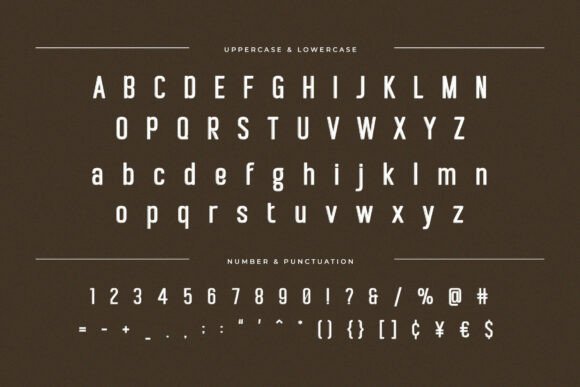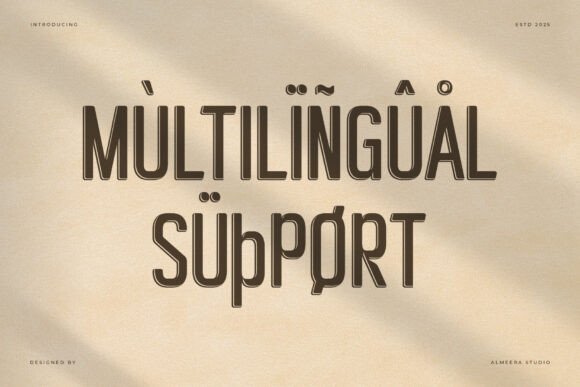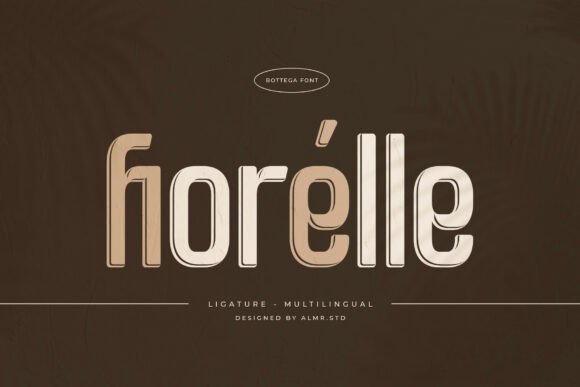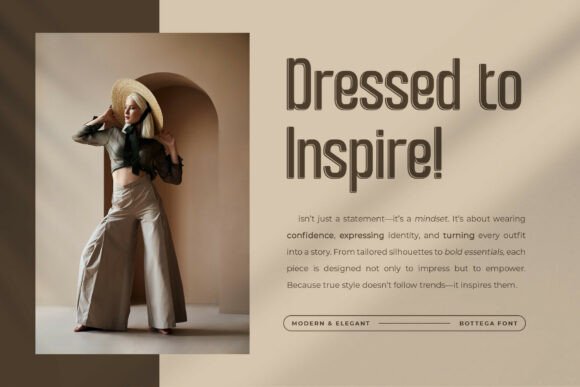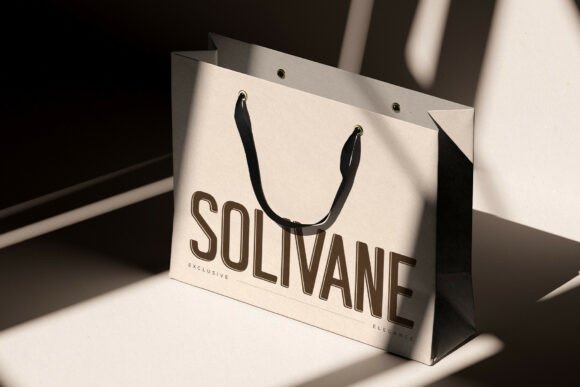
Unveiling the Elegance of Bottega Font
As designers, we’ve all been there – staring at a blank canvas, searching for the perfect font to bring our vision to life. The pressure to create something truly unique and captivating can be overwhelming. But what if the perfect font was waiting for you, its elegant lines and refined simplicity whispering ‘yes, this is it’?
Enter Bottega Font, a modern display sans designed to elevate your upscale branding, fashion logos, and editorial titles. With its high contrast shapes and beautiful spacing, Bottega Font is the perfect companion for designers seeking to create luxury-driven designs that exude sophistication and style. By incorporating Bottega Font into your design arsenal, you’ll unlock a world of creative possibilities and take your projects to new heights.
Bottega Font Key Features
- Unique Characteristics: Bottega Font features a distinctive, elegant design with a mix of modern and classic elements, making it perfect for various design projects, from logos to packaging.
- Language Support: The font supports a wide range of languages, including Latin, Cyrillic, and Greek alphabets, making it suitable for international projects.
- Weight and Style Options: Bottega Font is available in multiple weights, from Light to Bold, and various styles, including Regular, Italic, and Condensed, offering flexibility for designers.
- Scalability: The font is designed to be highly scalable, ensuring that it remains legible and visually appealing even at small sizes or when enlarged.
Bottega Font Review
Overall, I think Bottega Font is a decent choice for designers looking for a modern, elegant typeface. ✨ One of the things that stands out is its versatility – it can be used for a variety of applications, from headings to body text. It also has a nice, balanced feel to it, which makes it easy to read.
Another strength of Bottega Font is its character set. ✨ It has a wide range of languages supported, making it a great choice for designers working on projects with diverse audiences. The font also includes a number of special characters, which can be useful for designers who need to include accents or other special symbols in their work.
- ⚠️ The font may not be suitable for very small text sizes, as it can become difficult to read at smaller sizes.
- ⚠️ The font also lacks a bold weight, which can make it less versatile for use in certain applications.
In terms of overall impression, I think Bottega Font is a solid choice for designers. While it may not be perfect, it’s a well-designed typeface that can be used in a variety of contexts. ✨ With a little creativity and experimentation, I think designers can get some great results with Bottega Font.
Tips for Getting the Most Out of Bottega Font
For best results, use Bottega Font in bold or italic styles to add emphasis to your text. You can also experiment with different font sizes and combinations to create visually appealing designs.
Bottega Font is ideal for:
- Designing luxury brand materials (e.g. logos, packaging, etc.).
- Creating elegant and sophisticated digital content (e.g. social media posts, email newsletters,